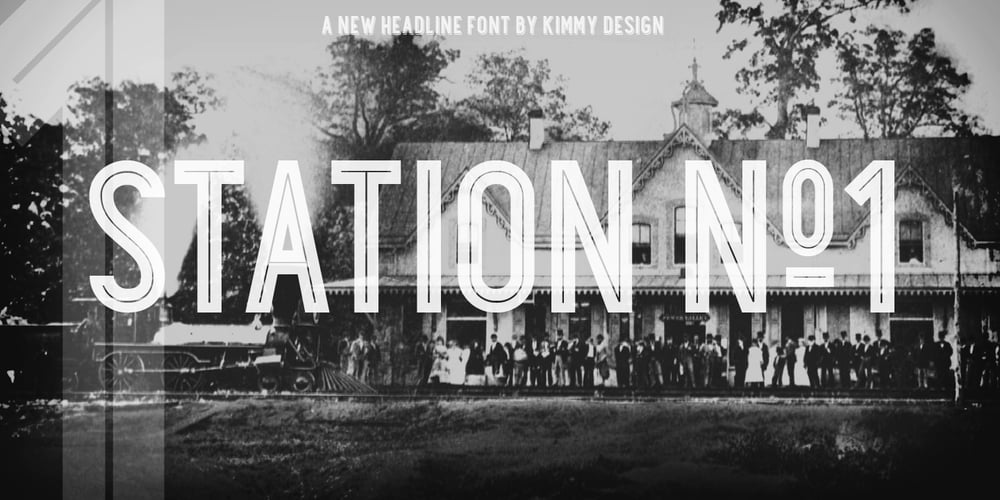
Station Font Family was designed by Kimmy Kirkwood and published by Kimmy Design. Station contains 7 styles and family package options. Station is a bold headline typeface inspired by old Train Station type and graphics. It can be used in a modern and retro way, and its different patterns and styles give a unique look to any design.